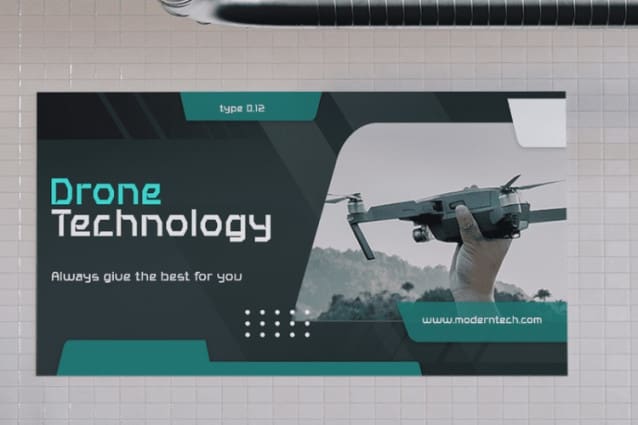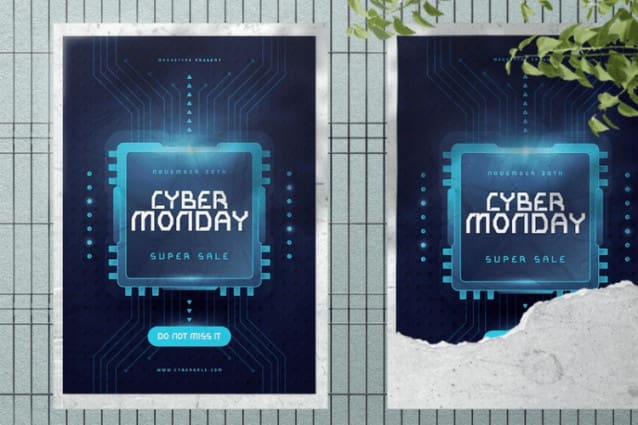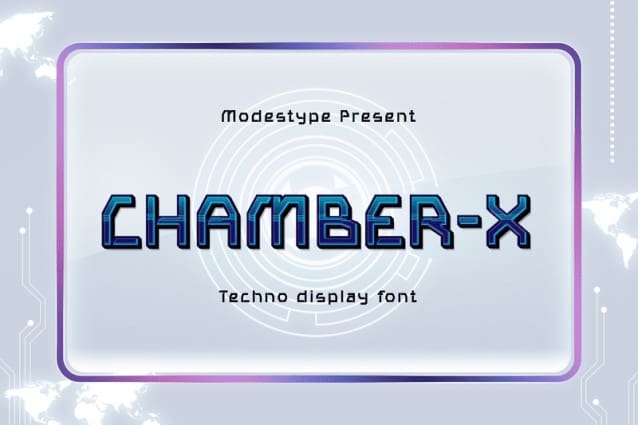
Chamber X Font
Chamber X Font is a cutting-edge display font that is perfect for designers and creatives looking to make a bold statement. This futuristic font features a sleek, modern design that is inspired by all things tech, from robots and AI to outer space and beyond.
With its clean lines and sophisticated style, CHAMBER X is the perfect choice for a wide range of projects, from movie posters and album covers to branding materials and social media graphics. This versatile font is designed to work seamlessly with a variety of design styles, making it a great choice for creatives of all skill levels.
Whether you’re creating content for a high-tech startup, a sci-fi movie, or a futuristic music video, CHAMBER X is sure to capture the attention of your audience and convey a sense of innovation and sophistication. This font is the perfect choice for anyone looking to make a bold statement and stand out in a crowded digital landscape.
So if you’re looking for a modern, futuristic font that is sure to impress, look no further than CHAMBER X – the ultimate choice for all your design needs.